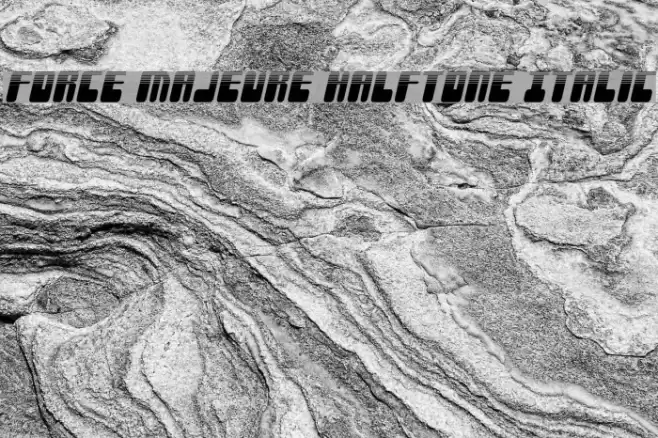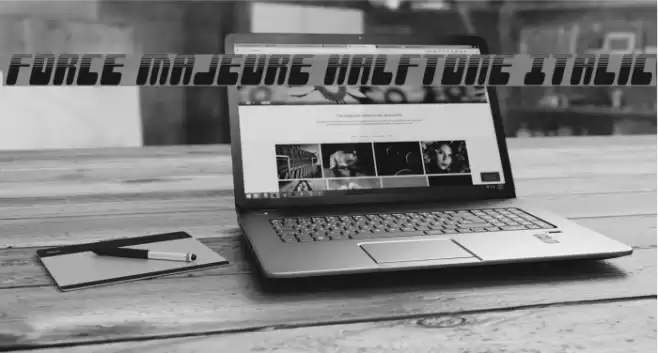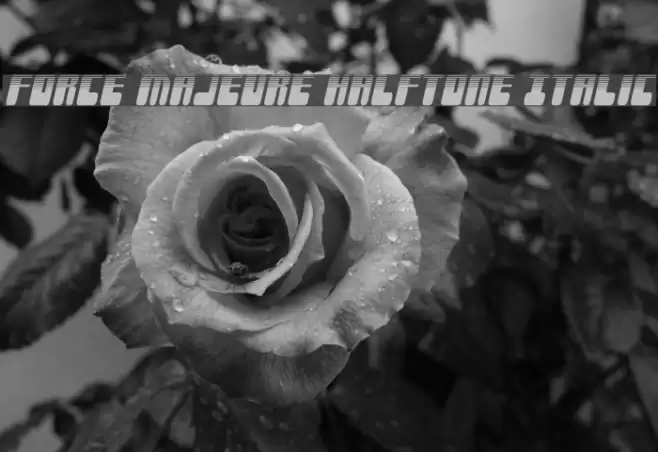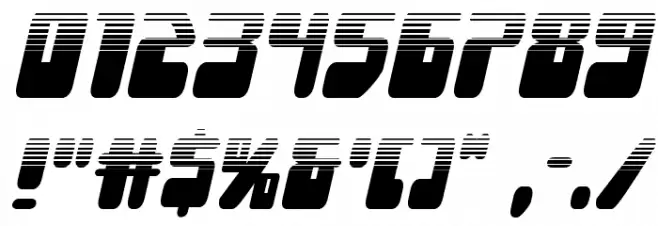
Force Majeure Halftone Italic Font
Force Majeure Halftone Italic Description
This font features a bold, futuristic design with a halftone effect that gives it a dynamic and energetic appearance. The characters are italicized, adding a sense of motion and speed. The uppercase and lowercase letters maintain a consistent style, with each character exhibiting a unique pattern of horizontal lines that create a gradient effect. The numbers and special characters follow the same design principles, ensuring uniformity across all glyphs. This font's distinct style makes it stand out, making it ideal for attention-grabbing designs.
A bold, italicized font with a futuristic halftone effect from Fancy fonts.
- Proposed Projects: Ideal for sci-fi themed projects, modern branding, posters, and digital artwork.